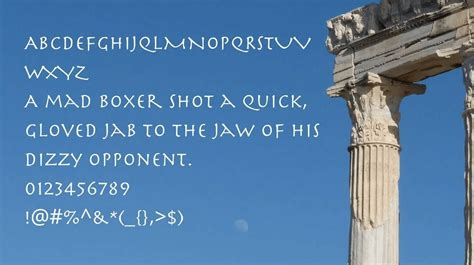
Herculanum Regular Font: Download And Usage Guide
Herculanum Regular Font: A Comprehensive Guide to Download and Usage
Hey guys! Today, we’re diving deep into the world of typography to explore the Herculanum Regular font . This font, known for its unique and classic appeal, has been a favorite among designers and typographers for various projects. In this comprehensive guide, we will explore everything you need to know about the Herculanum Regular font , including its history, characteristics, where to download it, how to use it effectively, and some tips for getting the most out of this typeface. So, buckle up and get ready to enhance your typography knowledge!
What is Herculanum Regular Font?
Let’s start with the basics. Herculanum Regular is a typeface that draws inspiration from ancient Roman inscriptions. This font exudes a sense of history and timelessness, making it an excellent choice for projects that aim to convey elegance, tradition, or a touch of classical charm. Designed with meticulous attention to detail, Herculanum Regular features distinct letterforms that set it apart from more generic fonts. Its unique character shapes and balanced proportions make it highly legible and visually appealing, whether used in print or digital media. The font’s design reflects the monumental inscriptions found in the ancient city of Herculaneum, which was destroyed by the eruption of Mount Vesuvius in 79 AD. This historical connection gives the font a profound sense of gravitas and cultural significance. When you choose Herculanum Regular , you’re not just selecting a font; you’re embracing a piece of history and infusing your work with a sense of classical artistry. It’s a fantastic option for projects where you want to evoke a sense of history, sophistication, or timeless beauty. Imagine using it for the titles of a historical novel, the branding of a high-end jewelry store, or the invitations for a sophisticated wedding. The possibilities are endless! Understanding the essence of Herculanum Regular helps you appreciate its value and use it effectively in your design projects.
Key Characteristics of Herculanum Regular
Understanding the characteristics of Herculanum Regular is crucial to using it effectively in your projects. This font has several distinguishing features that make it stand out: Firstly, its letterforms are inspired by Roman inscriptions, giving it a classical and elegant appearance. The serifs are subtly crafted, adding to its refined look. Secondly, Herculanum Regular has balanced proportions, ensuring readability and visual appeal. The spacing between letters is carefully considered, making it easy on the eyes, even in longer texts. Thirdly, the font exudes a sense of timelessness, making it suitable for projects that require a touch of history or tradition. It’s perfect for creating a sense of sophistication and gravitas. The weight of the font is consistent, providing a stable and reliable appearance. This consistency is essential for maintaining a professional and polished look in your designs. Herculanum Regular also boasts a unique set of glyphs, including special characters and symbols that enhance its versatility. These additional characters can be used to add flair and personality to your typography. In addition to its visual attributes, the font’s technical aspects are noteworthy. It is designed to be compatible with a wide range of software and operating systems, ensuring seamless integration into your workflow. It also supports various font formats, making it easy to use across different platforms. Overall, the key characteristics of Herculanum Regular combine to create a typeface that is both visually stunning and highly functional. By understanding these features, you can leverage the font’s strengths to create impactful and memorable designs.
How to Use Herculanum Regular Effectively
Now that you’ve downloaded the Herculanum Regular font, let’s talk about how to use it effectively. This font, with its classical and elegant appeal, can enhance a wide range of design projects, but it’s important to use it thoughtfully to achieve the best results. One of the primary considerations is readability. While Herculanum Regular is generally legible, it’s best used for headlines, titles, and short paragraphs rather than extensive body text. Its unique letterforms can become tiring to read in large blocks of text. Pair it with a simpler, more neutral font for body text to ensure a comfortable reading experience. When using Herculanum Regular for headlines, experiment with different sizes and weights to find the perfect balance. A larger font size can emphasize its elegance, while a slightly bolder weight can add emphasis. Consider the overall tone of your project when choosing where to use this font. It’s particularly well-suited for projects that aim to convey a sense of history, tradition, or sophistication. Think about using it for wedding invitations, historical novels, luxury branding, or museum exhibits. In terms of color, Herculanum Regular works well in both light and dark settings. However, be mindful of contrast to ensure readability. A light-colored font on a dark background can create a dramatic effect, while a dark font on a light background offers a classic look. Experiment with different color combinations to find what works best for your design. Another important tip is to avoid overusing the font. Using Herculanum Regular sparingly can make it more impactful. Too much of a good thing can dilute its effect and make your design look cluttered. By following these guidelines, you can harness the beauty and elegance of Herculanum Regular to create stunning designs that leave a lasting impression. So go ahead, experiment, and have fun exploring the possibilities!
Tips and Tricks for Mastering Herculanum Regular
To truly master the Herculanum Regular font, there are a few additional tips and tricks that can help you unlock its full potential. First, pay close attention to kerning and tracking. Kerning refers to the spacing between individual letters, while tracking adjusts the overall spacing of a block of text. Fine-tuning these settings can significantly improve the readability and visual appeal of your typography. Herculanum Regular , with its unique letterforms, may require some manual kerning to ensure that the spacing looks balanced and consistent. Experiment with different kerning and tracking values to find what works best for your design. Another useful technique is to use stylistic alternates. Many fonts, including Herculanum Regular , include alternate versions of certain characters that can be used to add variety and personality to your typography. These alternates may feature different shapes, serifs, or embellishments that can enhance the overall look of your design. Check your design software for options to access stylistic alternates and experiment with them to see how they can enhance your text. Consider the context in which you’re using the font. Herculanum Regular is not a one-size-fits-all solution, and it may not be appropriate for every project. Think about the overall tone, style, and message of your design and whether this font aligns with your goals. It’s best used in situations where you want to convey a sense of history, elegance, or tradition. Don’t be afraid to experiment with different sizes, weights, and colors. Trying out different variations can help you discover new and creative ways to use the font. Remember, the key to mastering any font is practice and experimentation. The more you use Herculanum Regular , the better you’ll become at understanding its nuances and leveraging its strengths. By following these tips and tricks, you can take your typography skills to the next level and create stunning designs with Herculanum Regular .
Examples of Effective Herculanum Regular Usage
To truly appreciate the versatility of Herculanum Regular , let’s look at some examples of how it can be used effectively in various design projects. Imagine you’re designing the branding for a high-end jewelry store. Using Herculanum Regular for the logo and marketing materials can instantly convey a sense of elegance and sophistication. The font’s classical letterforms evoke a sense of timeless beauty, perfectly complementing the luxurious nature of the products. Another great example is using Herculanum Regular for wedding invitations. The font’s refined appearance and historical roots make it an ideal choice for creating a sense of tradition and romance. Pair it with delicate floral illustrations and a soft color palette to create invitations that are both beautiful and memorable. For historical novels or documentaries, Herculanum Regular can be used to create a sense of authenticity and gravitas. Using the font for the title and chapter headings can transport readers back in time and immerse them in the story. In the realm of museum exhibits, Herculanum Regular can be used to create informative and visually appealing displays. The font’s readability and classical style make it well-suited for presenting historical information in an engaging way. Think about using it for captions, signage, and informational panels. In each of these examples, Herculanum Regular is used strategically to enhance the overall design and convey a specific message. The font’s unique characteristics are leveraged to create a lasting impression and capture the attention of the audience. By studying these examples, you can gain inspiration and learn how to use Herculanum Regular effectively in your own projects. Remember, the key is to understand the font’s strengths and use it in a way that complements the overall design.
In conclusion, the Herculanum Regular font is a timeless and elegant typeface that can enhance a wide range of design projects. Its classical letterforms, historical roots, and versatile nature make it a valuable addition to any designer’s toolkit. By understanding its key characteristics, knowing where to download it safely, learning how to use it effectively, and following our tips and tricks, you can master this font and create stunning designs that leave a lasting impression. Whether you’re designing a logo, creating wedding invitations, or working on a historical novel, Herculanum Regular can help you convey a sense of history, sophistication, and beauty. So go ahead, download the font, experiment with its features, and unleash your creativity. With a little practice and imagination, you can create typography that is both visually stunning and meaningful. Remember to always use fonts legally and ethically, and support the designers and foundries who create these valuable resources. Happy designing, and may your typography always be on point!